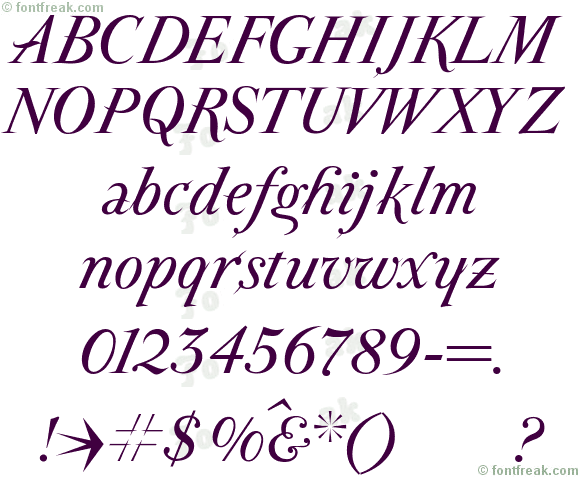
ParmaPetit-Italic
ParmaPetit-HeavySwinging
ParmaPetitOutline
ParmaPetitSCItalic
ParmaPetit-Normal
About ParmaPetit-Italic
ParmaPetit-Italic, designed by Manfred Klein, is a refined serif font that embodies elegance and sophistication. Its italic style features graceful curves and a gentle slant, providing a dynamic flair to any text. The stroke weight is moderately light, which contributes to its delicate appearance, while the contrast between thick and thin strokes enhances its visual interest. The spacing is well-balanced, ensuring readability, while decorative elements, such as the subtle serifs, add a touch of class without overwhelming the design.
This font is ideal for a variety of use cases. Its elegant nature makes it perfect for wedding invitations, where a touch of formality is desired. Additionally, it can elevate movie posters, adding a dramatic flair that captures attention. Restaurant menus also benefit from the sophisticated style of ParmaPetit-Italic, making dishes appear more enticing. For branding projects, this font can help small business owners convey a sense of quality and professionalism in their promotional materials. Graphic designers will find it a versatile choice for various creative endeavors, allowing them to craft visually appealing layouts.
The target audience for ParmaPetit-Italic includes graphic designers, small business owners, and content creators who seek to enhance their projects with a touch of elegance. Whether you're crafting a personal invitation or designing a professional logo, this font offers the versatility and charm needed to make a lasting impression.